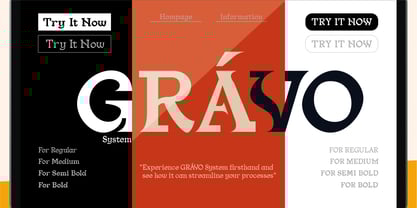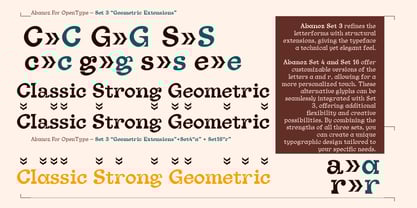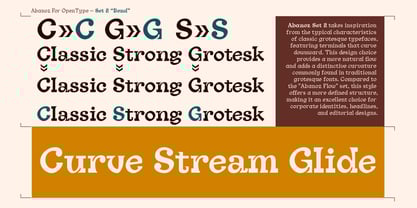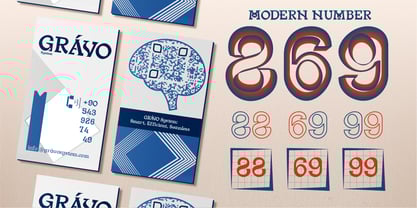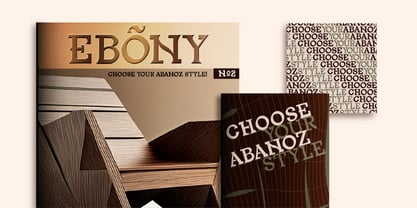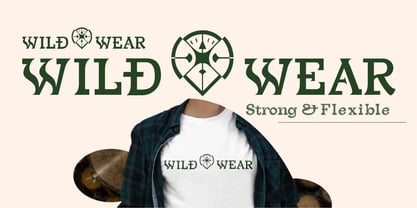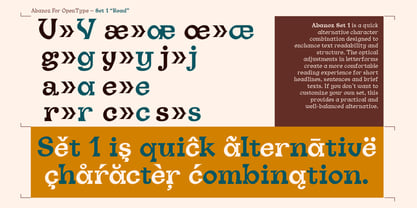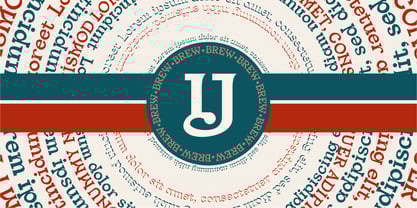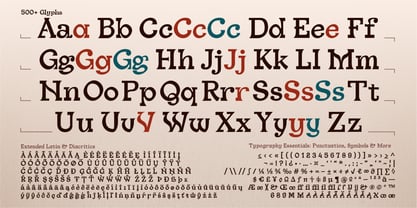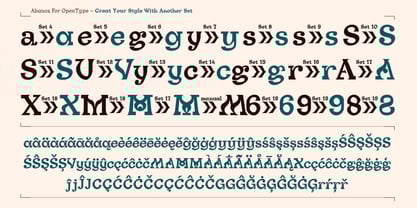
The Abanoz Font Family was designed by Alkın Buğra Başkurt and published by Alkin Bugra Baskurt Type. Abanoz contains 4 styles and family package options.
Abanoz is a slab serif typeface that stands out with its strong, legible, and distinctive structure. It is inspired by the elegance of nature and the durability and flexibility of ebony wood.
With its balanced letter proportions, sharp terminals, and fluid curves, it harmonizes effortlessly with both modern and classic designs. Developed specifically for display use, this typeface is an excellent choice for branding, headlines, subheadings, posters, and editorial designs.
With 500+ glyphs, extended Latin character support, and alternative letterforms, it offers designers a broad creative freedom.
It comes in four different weights and features a unique thickening system inherent to its form. This ensures versatility for various design purposes while maintaining a sophisticated and powerful appearance.
Abanoz